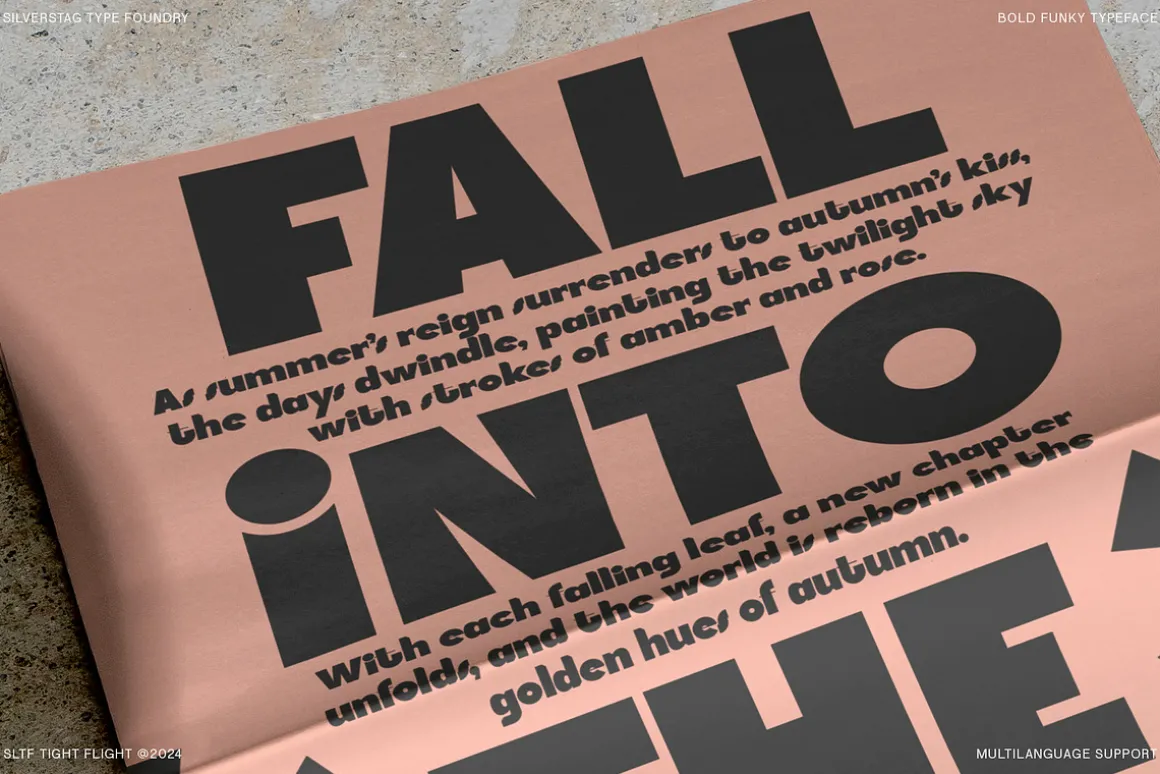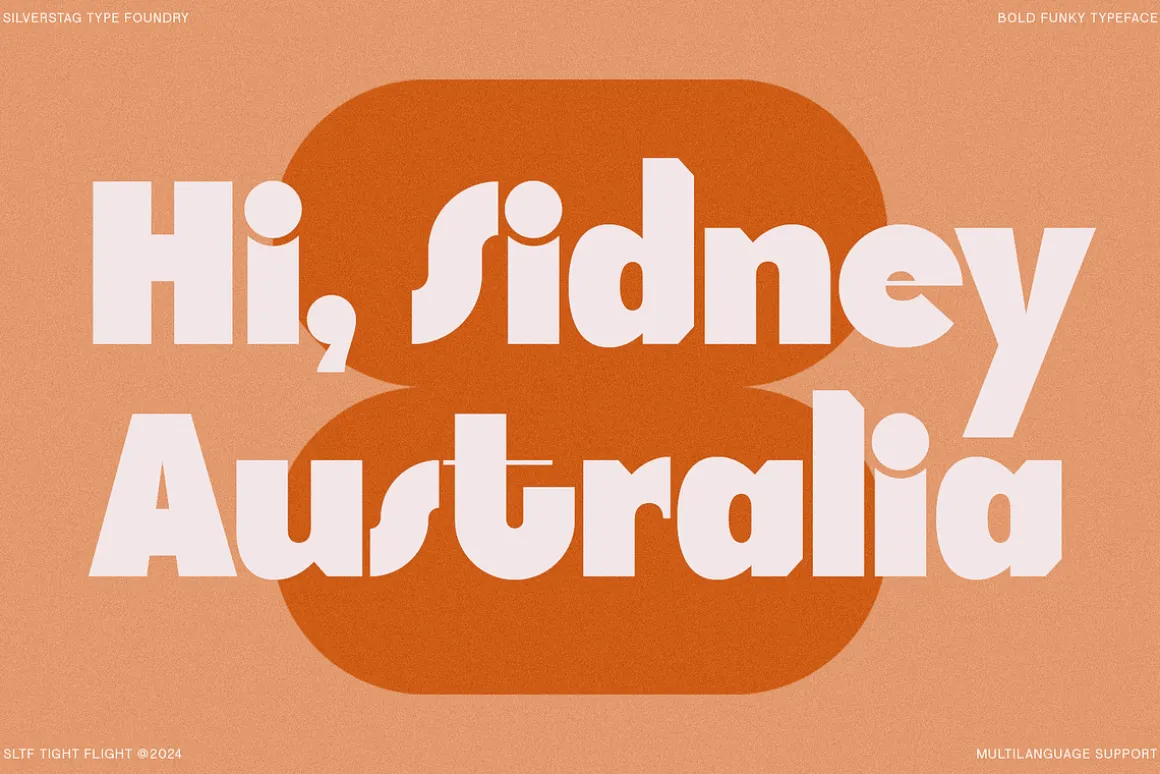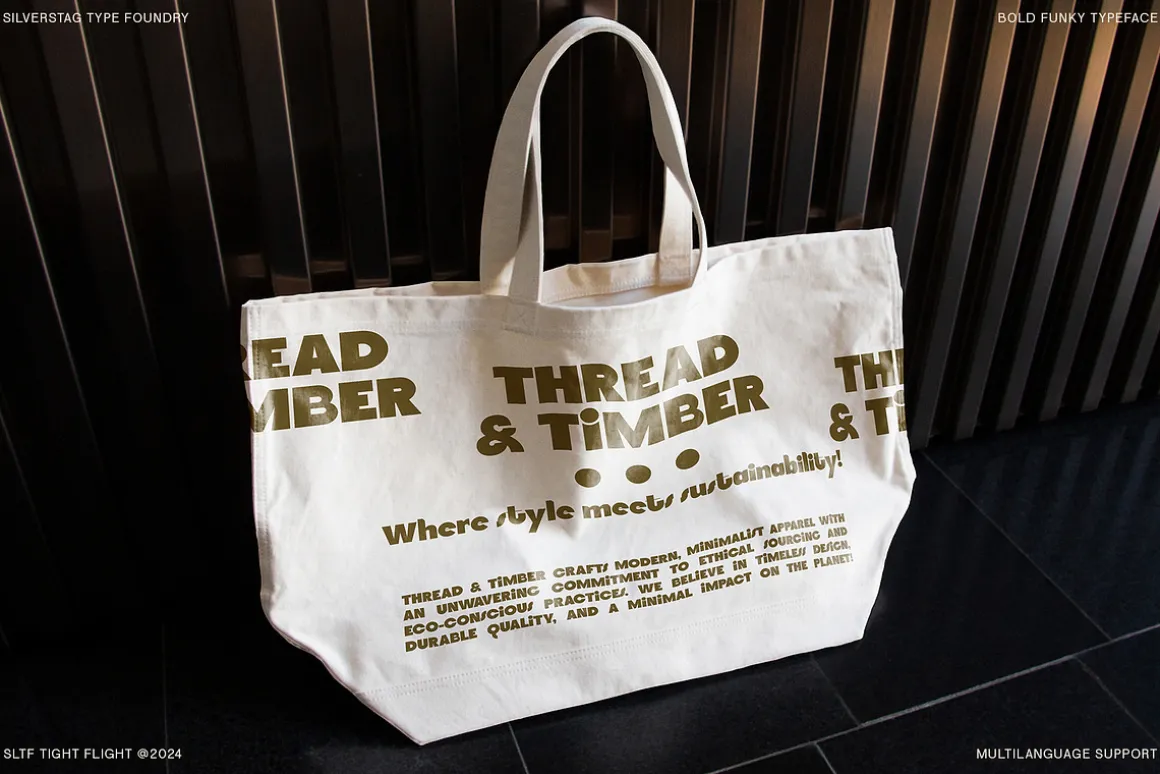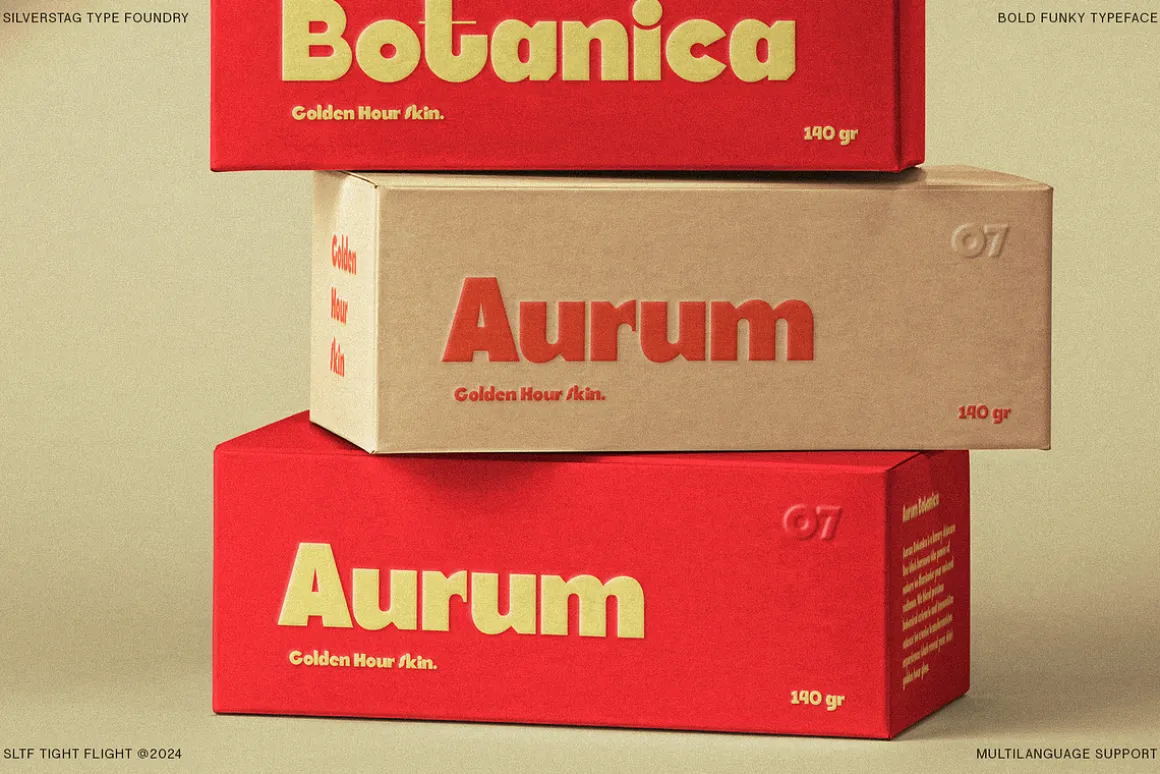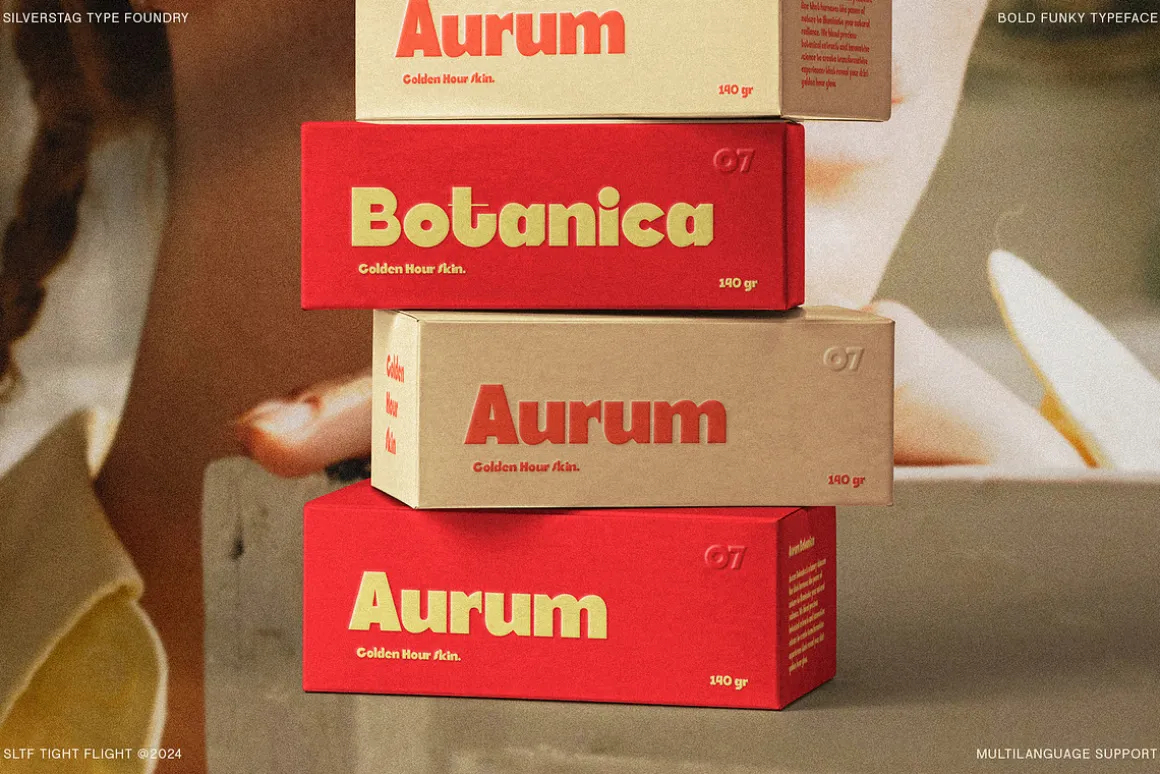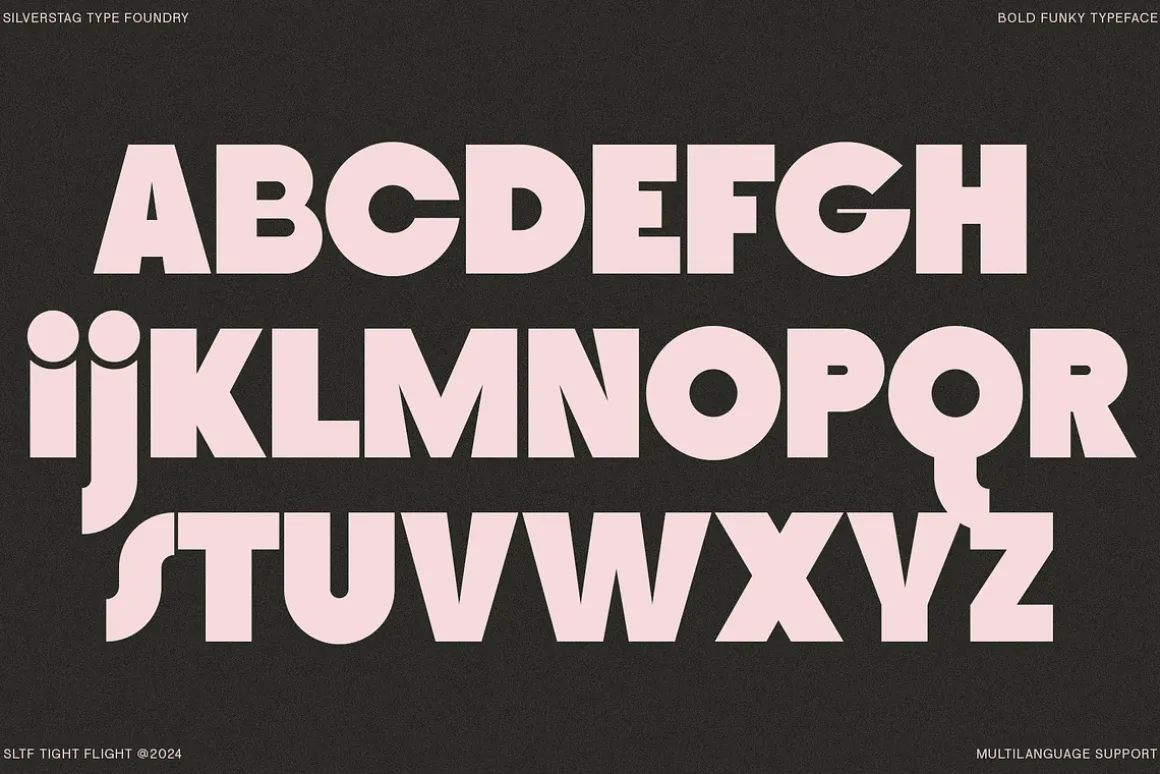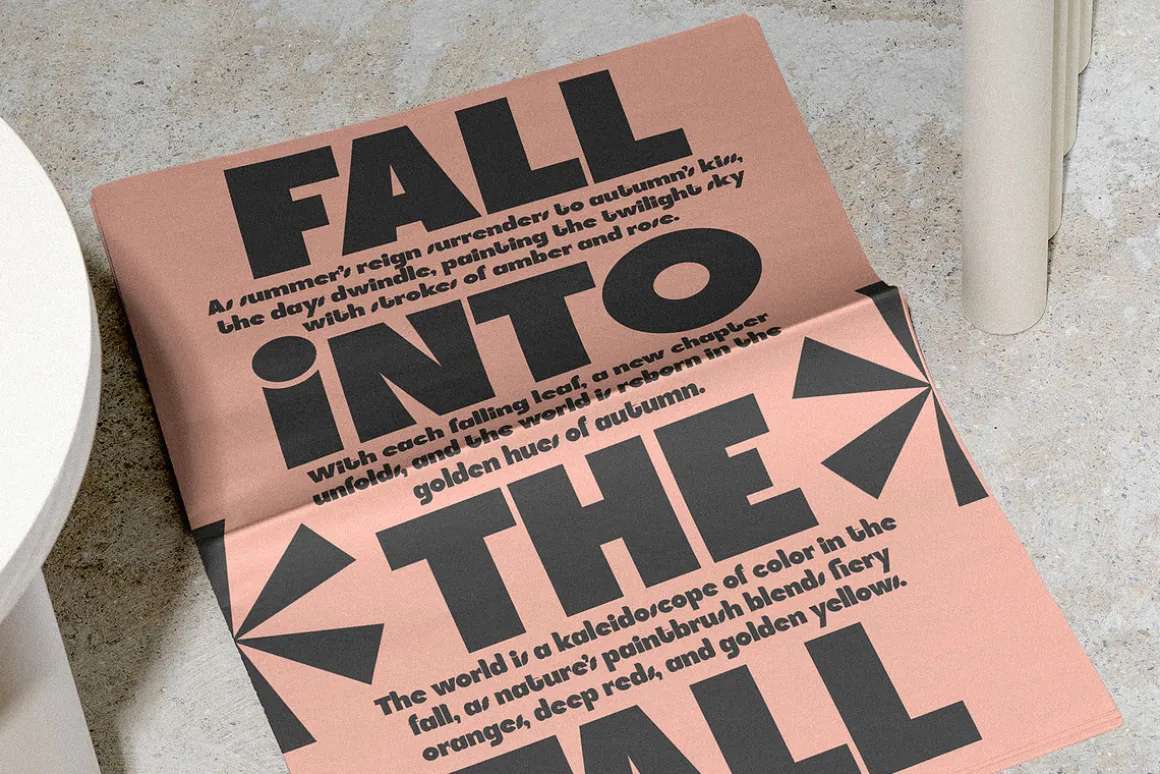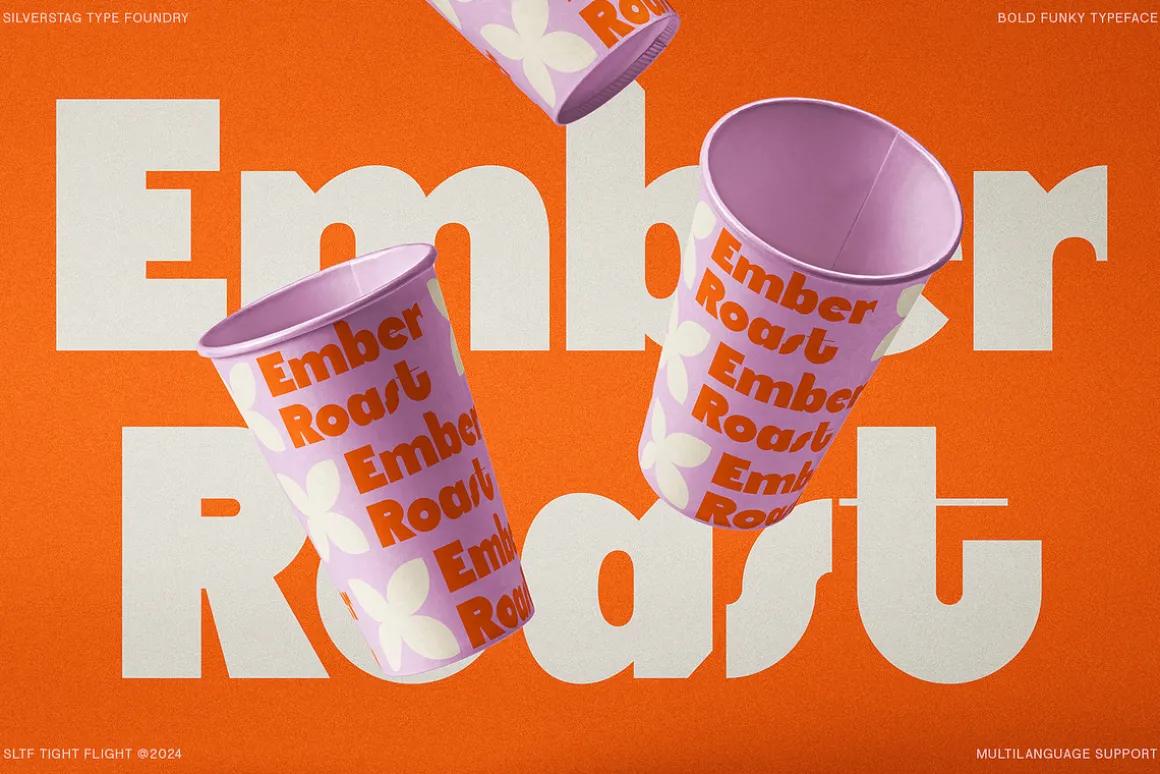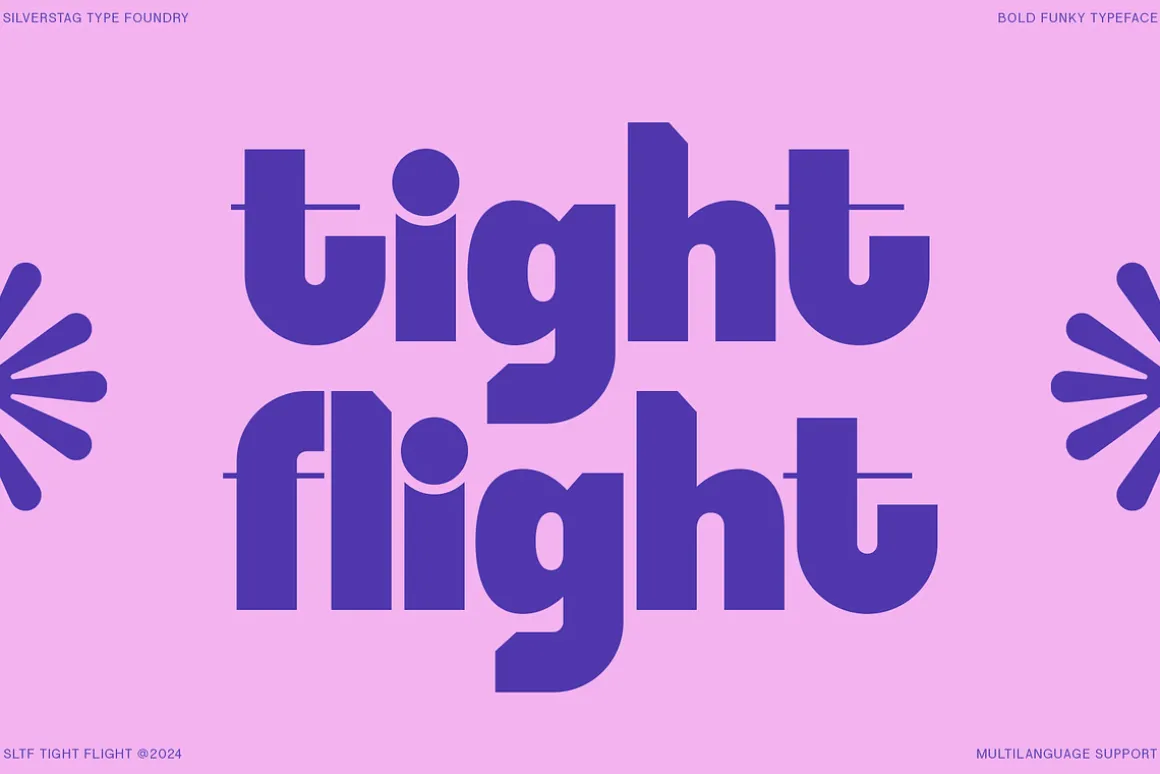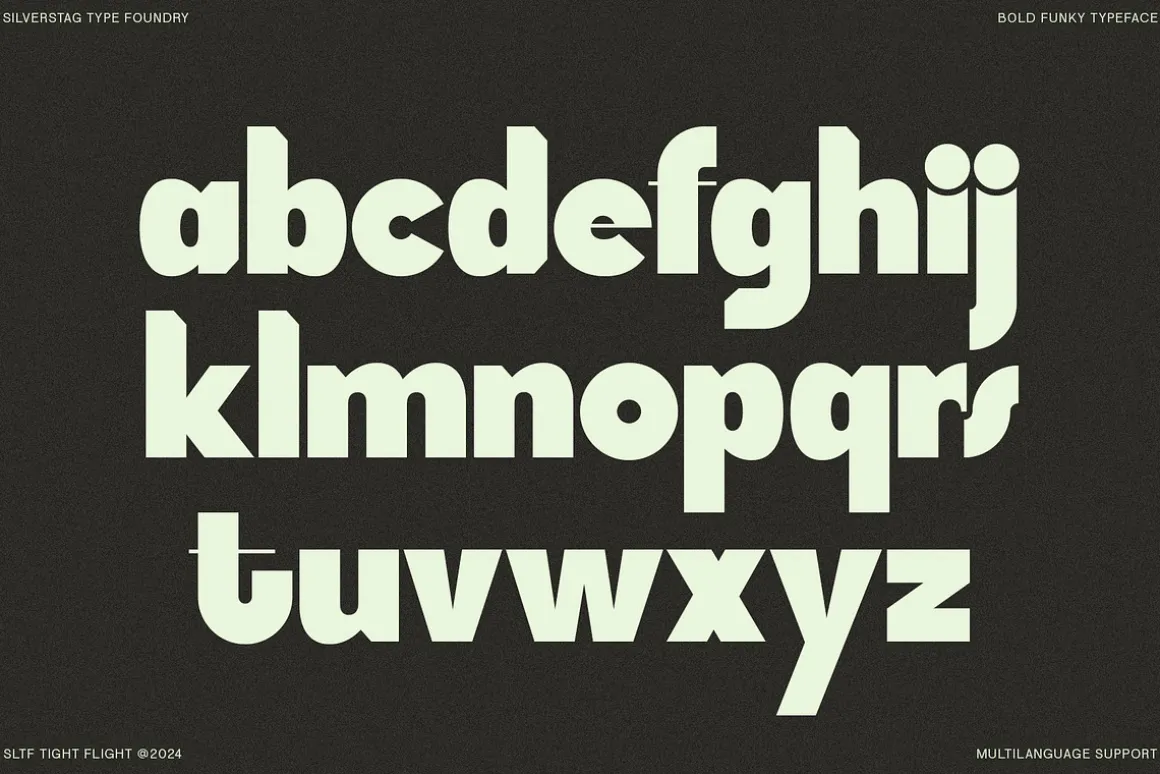
SLTF Tight Flight – A Bold & Funky Sans Serif for Designs That Soar
Introducing SLTF Tight Flight, a typeface that’s ready to take your designs to new heights. This bold and funky sans serif is bursting with personality, perfect for projects that demand attention and exude a sense of modern cool.
With its strong lines, geometric shapes, and unexpected curves, SLTF Tight Flight strikes the perfect balance between boldness and sophistication. Its unique character is sure to make your headlines pop, your logos stand out, and your branding soar.
Key Features:
- Versatile: SLTF Tight Flight is equally at home in headlines, logos, posters, packaging, and web design.
- Expressive: With its bold personality and unique style, it adds a touch of modern flair to any project.
- Chic: SLTF Tight Flight exudes a sense of cool confidence, perfect for brands and designs that want to make a statement.
- Globally Inclusive: With support for over 90 languages, SLTF Tight Flight speaks to a diverse audience.
- Meticulously Crafted: Every detail has been carefully considered to ensure readability, visual appeal, and a truly unique typographic experience.
Where SLTF Tight Flight shines:
- Branding & Logos: Create memorable and impactful brand identities that capture attention.
- Packaging Design: Give your products a modern and edgy look with eye-catching labels and packaging.
- Web Design: Craft captivating websites and landing pages that stand out from the crowd.
- Poster & Display: Design bold and attention-grabbing posters, signage, and advertising materials.
- Social Media: Elevate your social media graphics with a font that’s both stylish and engaging.
Take your designs to new heights with SLTF Tight Flight. This bold and funky sans serif is ready to elevate your projects with its unique blend of personality, versatility, and modern style.